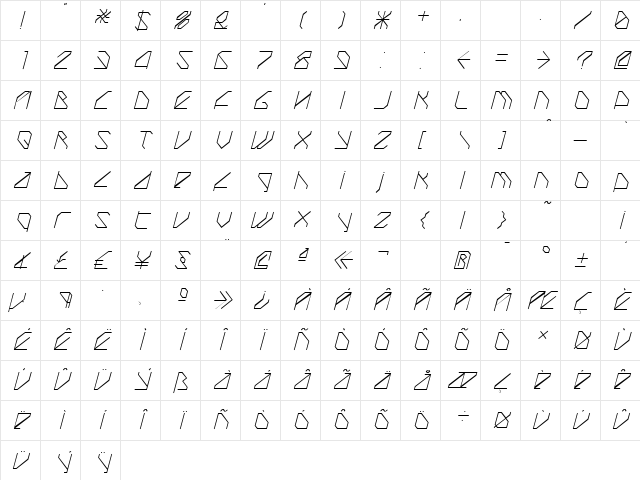
Complete TechstepThin Oblique Regular glyph index. Displaying only characters natively supported by TechstepThin Oblique Regular font.
TechstepThin Oblique has a distinctly futuristic character, with geometric precision and clean angles that feel at home in technology, gaming, and sci-fi contexts. The slanted form adds forward momentum and visual energy. Its slender proportions lend an understated elegance to any composition.